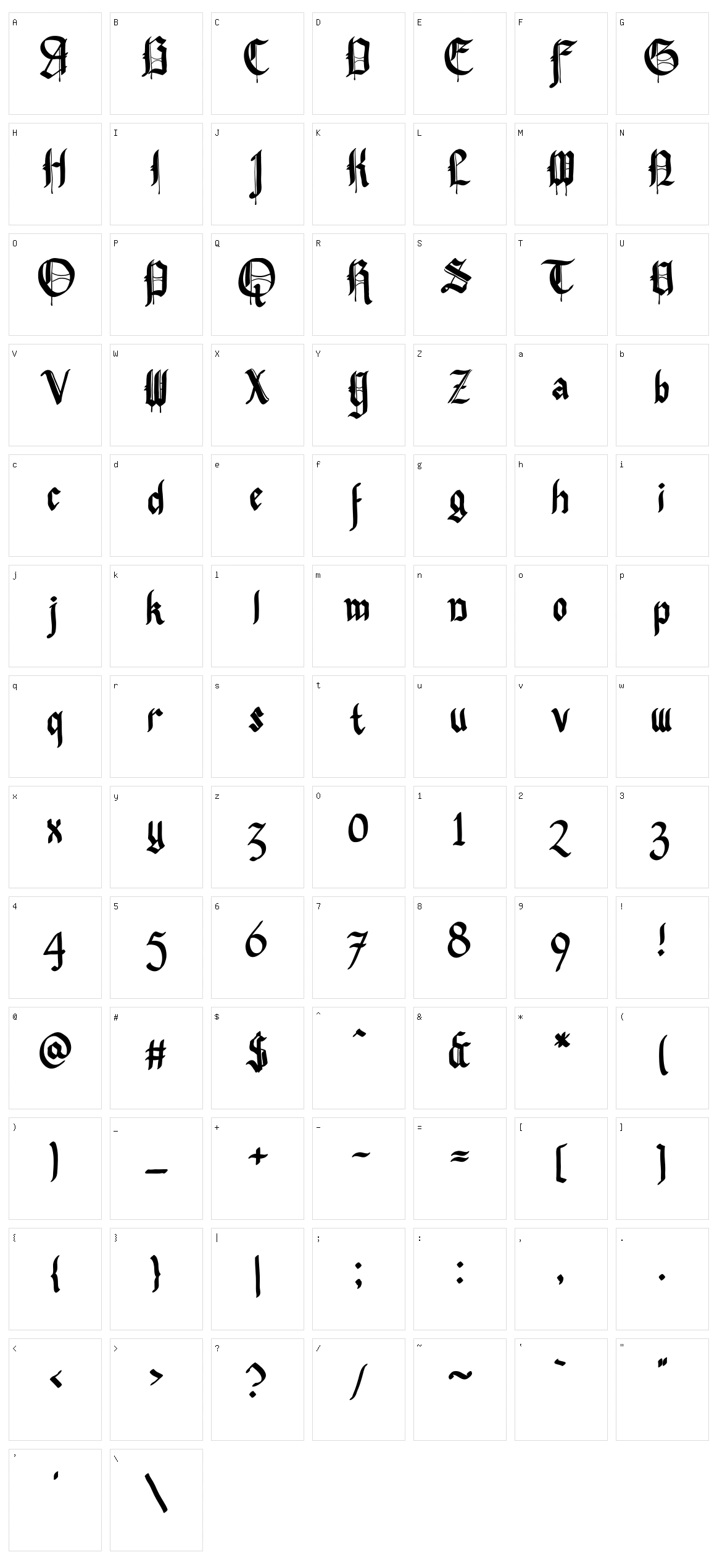
The free font Pennybridge 1563 is carefully designed by Mans Greback, showcasing a thoughtful balance of creativity and usability and belongs to the Gothic font family. When you download the ZIP file, it contains only 67.47 KB of font files, making it lightweight and quick to download. Please review the license details below to understand permitted usage and distribution rights. If license information is not available, we recommend using this font for personal projects only or contacting the author directly for commercial usage permissions.